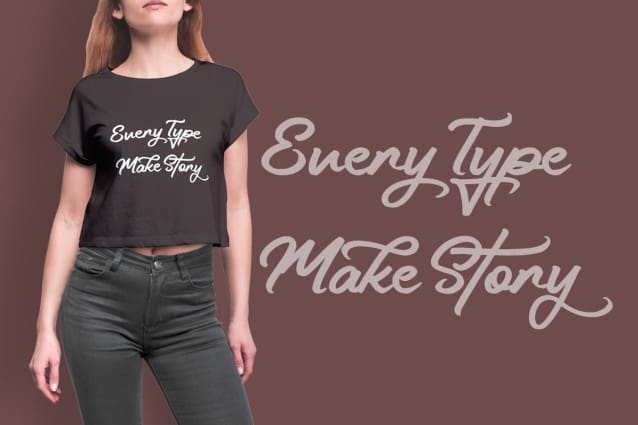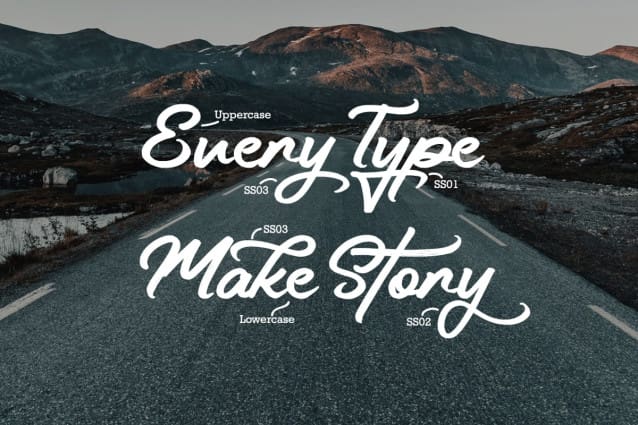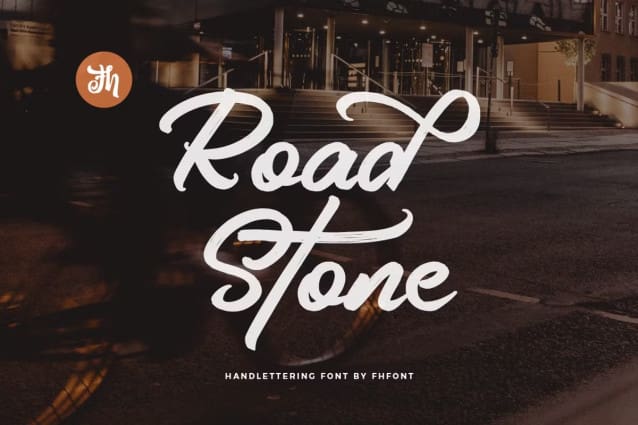
Road Stone Font
Road Stone Font by FHFont 26,098 downloads
Road Stone Font
Road Stone Font is script font with handlettering vintage brush style, with opentype feature include of the font. Suitable for design, element design, wedding, event, t-shirt, logo, badges, sticker, and awesome work, etc…